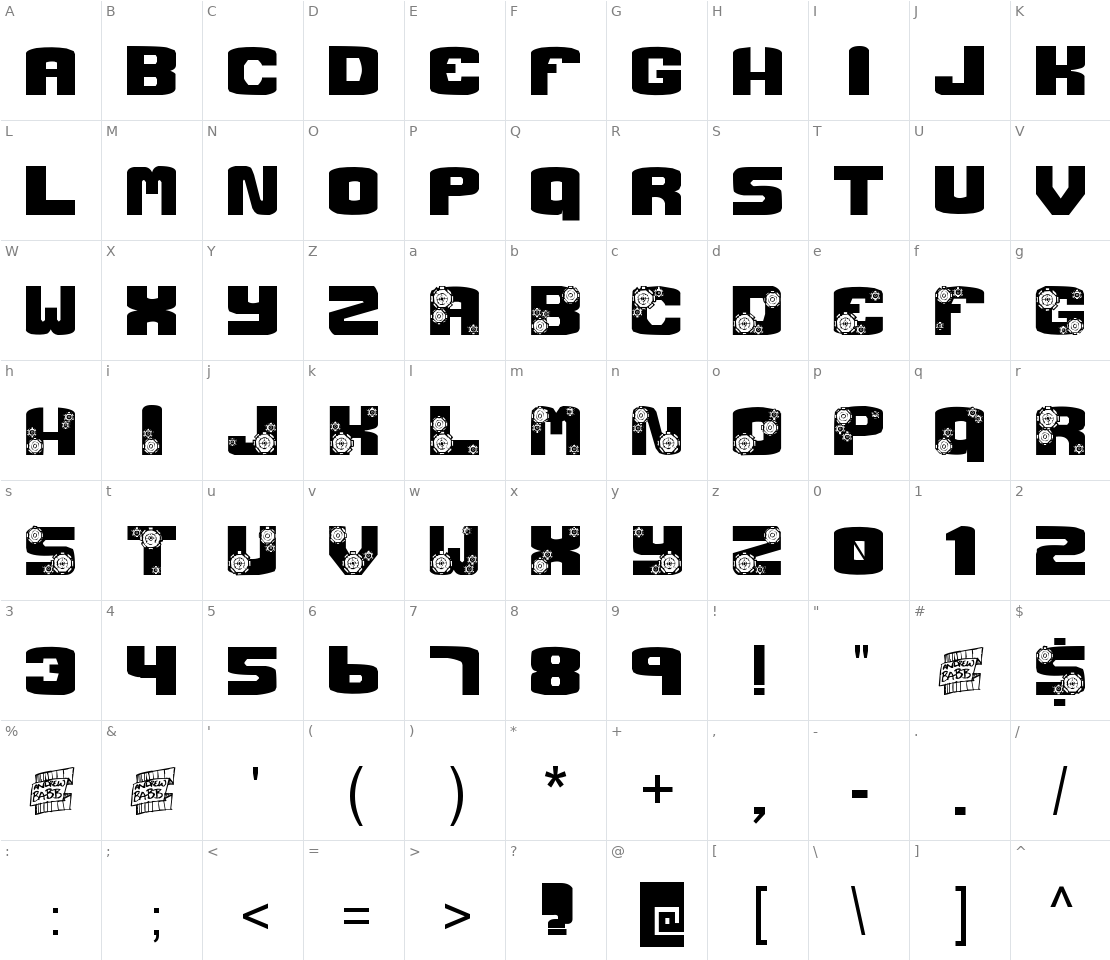
Gear Crank
by Buzzbum
Gear Crank is a heavy decorative face from Buzzbum with letterforms built from cogs, rivets, and mechanical parts, leaning fully into steampunk and industrial aesthetics. The bold, gear-laden construction gives every character a sense of weight and machinery, making it a natural pick for themed headlines, poster work, and event branding where the Victorian-industrial look is the whole point. Readability drops fast at small sizes, so keep it big and let the details do their thing.